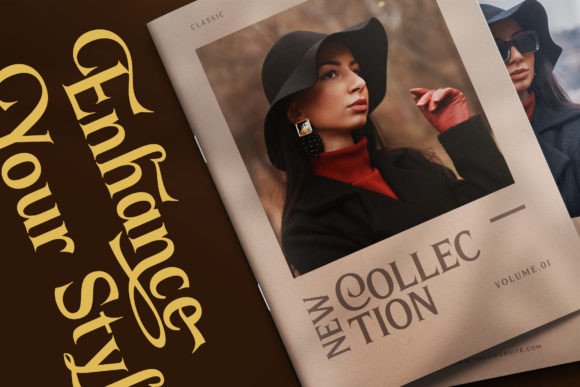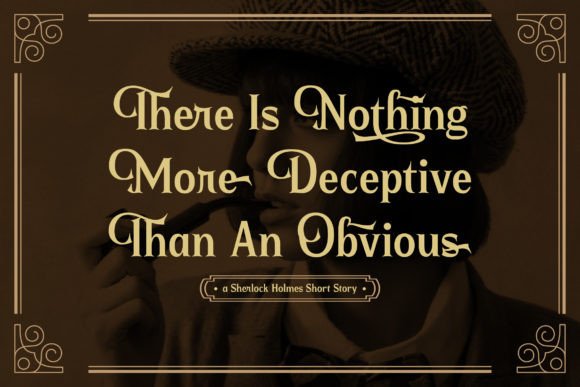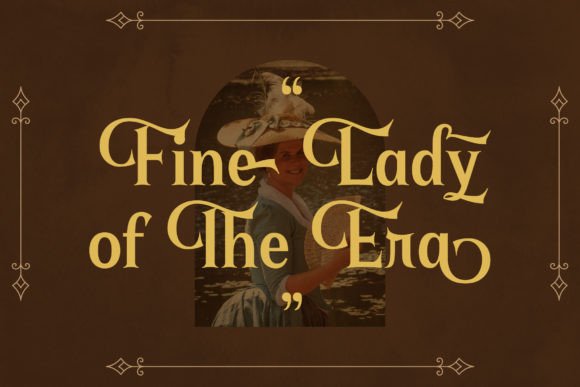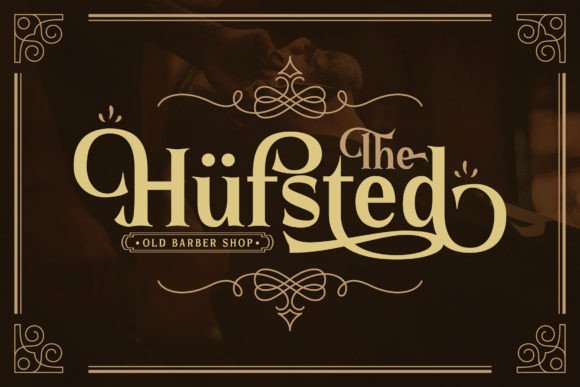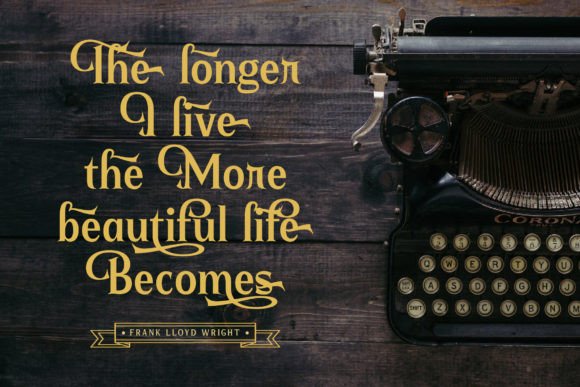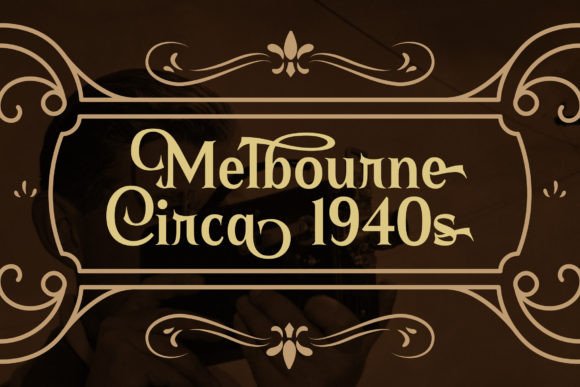
Discovering the Perfect Font for Your Next Creative Project
Have you ever stared at a blank page, trying to find the perfect font to bring your design to life? That’s a feeling many creatives can relate to. For me, it’s like searching for the missing piece of a puzzle – until I find it, my design just doesn’t feel complete. That’s why I’m excited to introduce you to Braders Font, a modern and classic serif typeface that’s sure to elevate your next project.
Braders Font is designed to add a touch of elegance and luxury to any design, making it perfect for logo designs, book titles, magazine covers, and more. Whether you’re a seasoned designer or just starting out, this versatile font is a valuable addition to your toolkit. With its unique style and look, Braders Font is sure to help you stand out from the crowd and make your design truly unforgettable.
Braders Font Key Features
- Unique Characteristics: Braders Font features a distinctive, hand-drawn style with subtle texture and imperfections, giving it a unique, human touch that sets it apart from other fonts.
- Font Families: Braders Font is available in 3 font families: Regular, Italic, and Bold, providing users with a range of styles to choose from, depending on their design needs.
- Customizability: Braders Font allows for advanced typographic customization, including ligature support, stylistic sets, and positional forms, enabling designers to fine-tune their typography to achieve the perfect look and feel.
Review of Braders Font
As a designer, I have to say that I was initially excited to try out Braders Font, but my experience was a bit of a mixed bag.
- ✨ Braders Font has a unique, playful feel to it that could be perfect for a children’s book or a fun, casual project.
- ✨ The font is highly customizable, with a wide range of weights and styles to choose from.
- ✨ Braders Font is also highly legible, even at small font sizes, which is a must for any font.
- ⚠️ The font can feel a bit over-the-top or too loud at times, which might not be suitable for all projects.
- ⚠️ Braders Font also lacks a clear, professional feel, which might make it less suitable for business or formal projects.
- ⚠️ The font’s irregularities can sometimes make it difficult to read, especially for those with visual impairments.
Overall Impression:
I would say that Braders Font is a solid choice for projects that require a playful, whimsical feel. However, it may not be the best choice for projects that require a more professional or formal tone. With a bit of tweaking and customization, Braders Font could be a great addition to any designer’s toolkit.
For best results, use the “Braders Font” for headings and titles to create a bold and modern look.
“Braders Font” is ideal for:
Headings and titles
Brand logos and identity
Modern and minimalist designs
Creating a bold and eye-catching visual impact